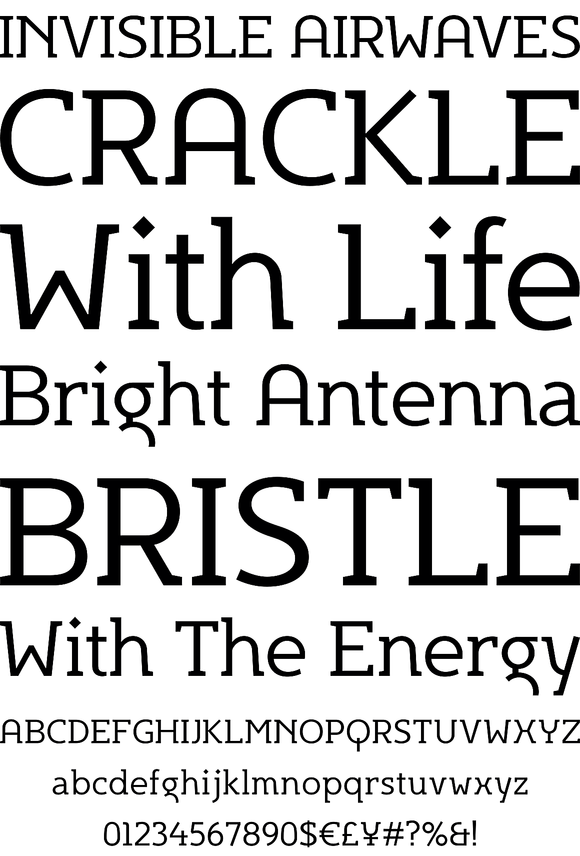
Egon is non-traditional slab-serif contemporary typeface family, which includes three weights in roman and italic respectively, making six font styles in total. Egon is designed with industrial and architectural flavor, and it is good for use in publications as a text and display font. It is named after Egon Eiermann as homage to the great German architect.